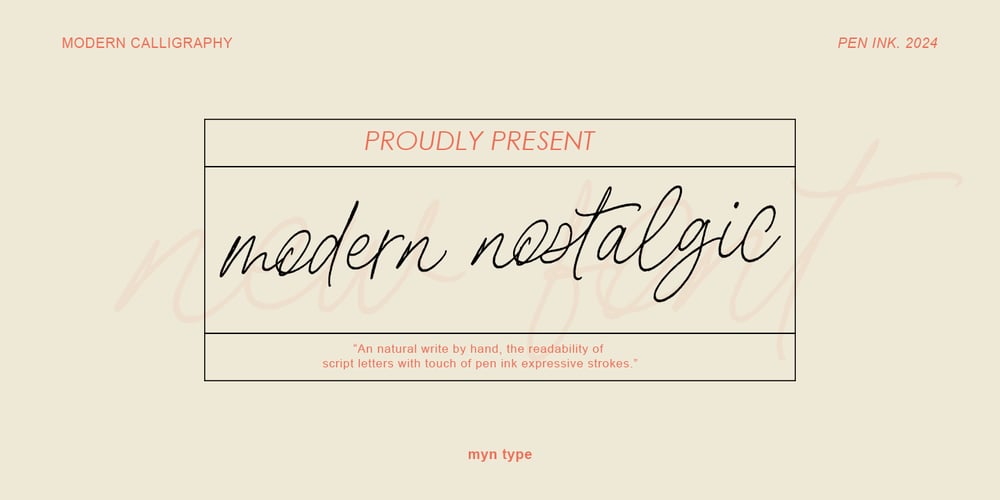
Modern Nostalgic Font Family was designed by Suyuti Amien and published by Myn Type. Modern Nostalgic contains 1 styles and family package options. Meet the Modern Nostalgic!An natural handwriting write by hand, with touch of pen ink expressive stroke. The natural characteristics and emotional resonance of handwriting script continue to hold significant value in various aspects of life. Understanding and appreciating the nuances of Modern Nostalgic can enrich our appreciation of human communication and creativity.Modern Nostalgic is perfect for creating calligraphy logos, invitations, display product, wedding design, social media graphics, and other design elements that require a contemporary and natural touch.